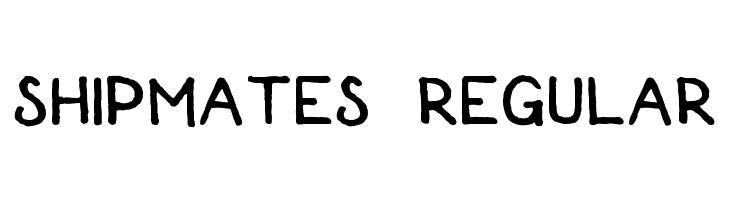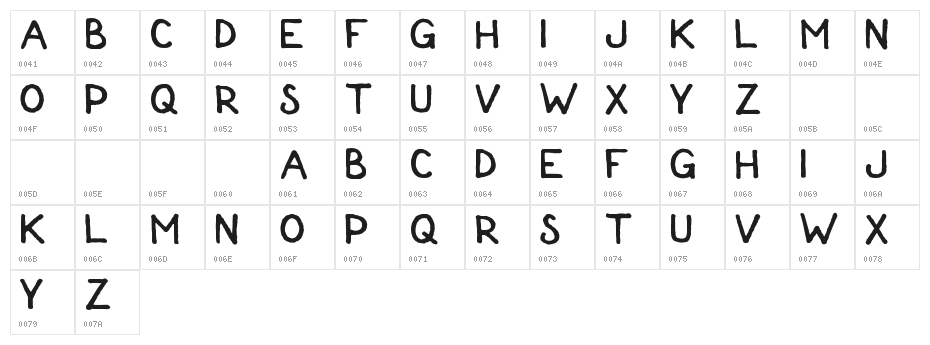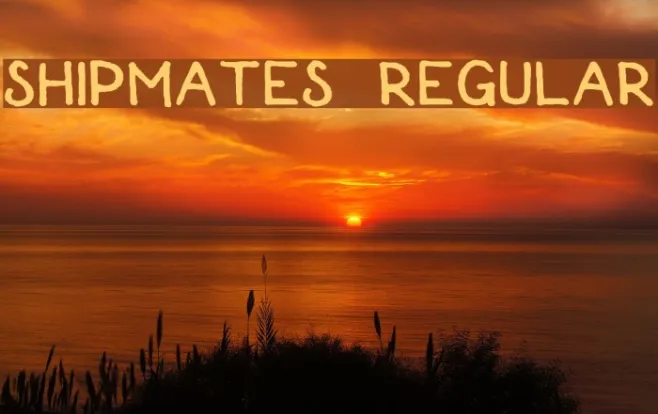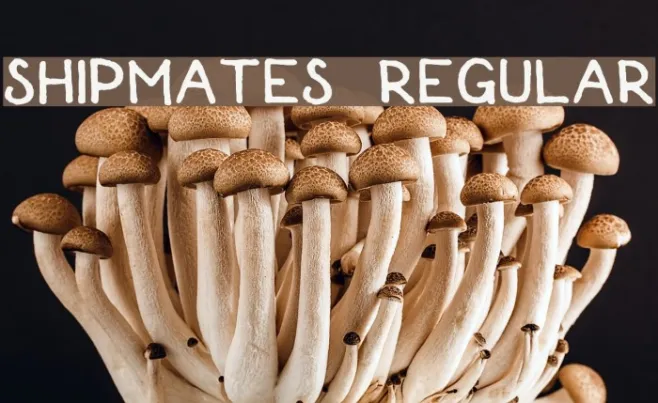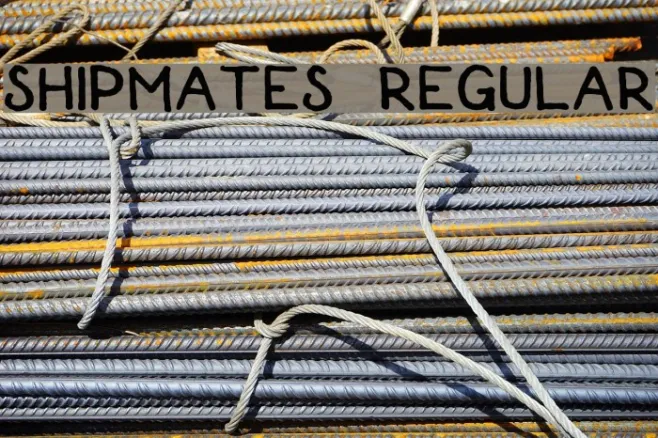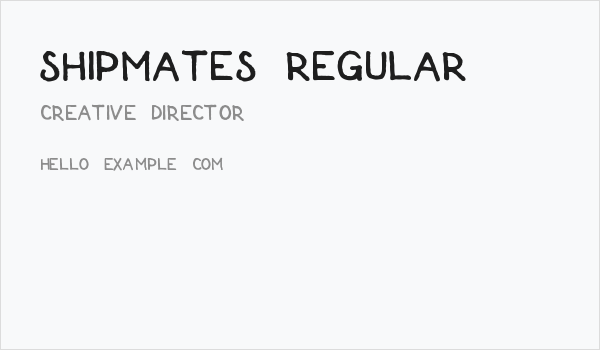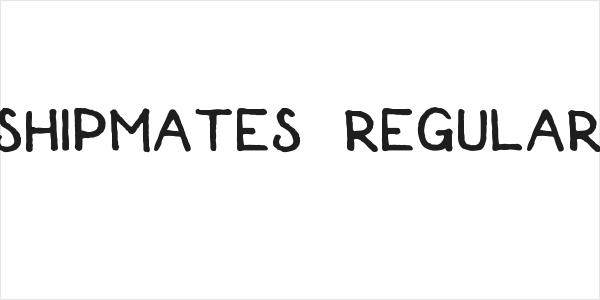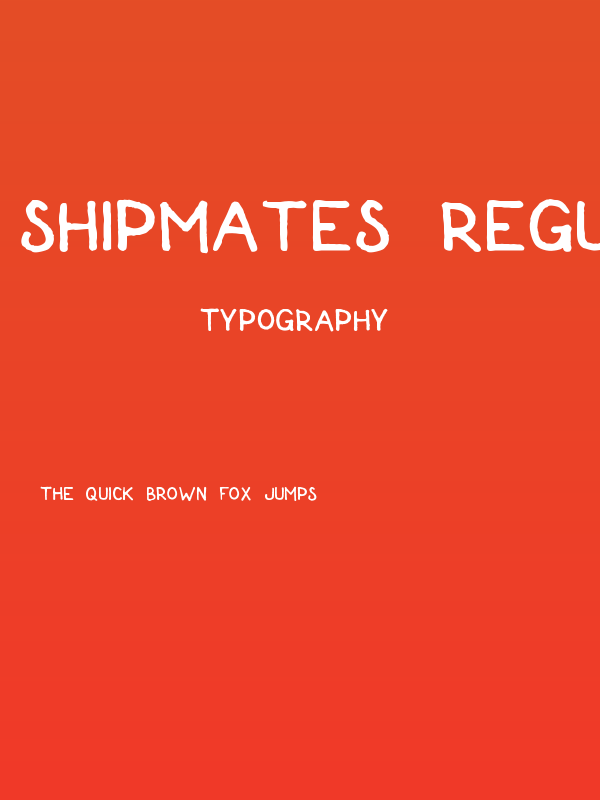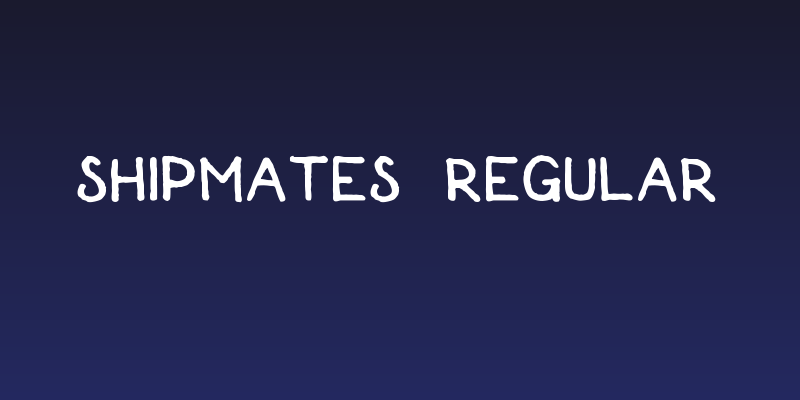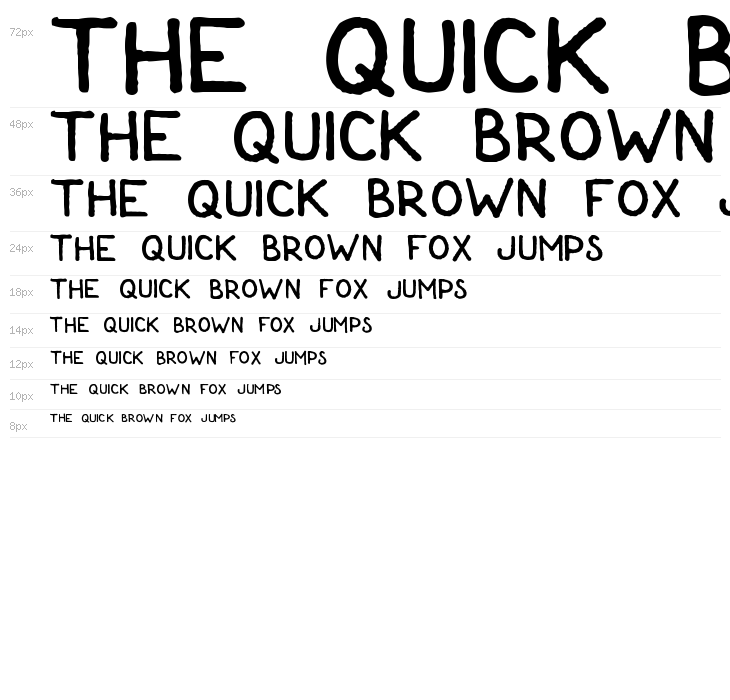
Shipmates Regular Font
Shipmates Regular Description
This font features a playful and slightly irregular handwritten style, giving it a casual and approachable feel. The characters are bold and rounded, with a consistent stroke width that maintains readability while adding a touch of whimsy. The uppercase letters are uniform in height, while the lowercase letters maintain a similar style, enhancing the font's cohesive appearance. The spacing between characters is balanced, ensuring clarity and legibility. This font's unique charm makes it suitable for projects that require a friendly and informal touch.
| Proposed Projects | Ideal for children's books, greeting cards, casual branding, and playful social media graphics. |